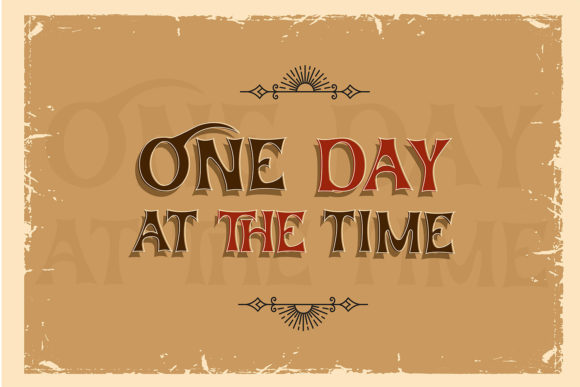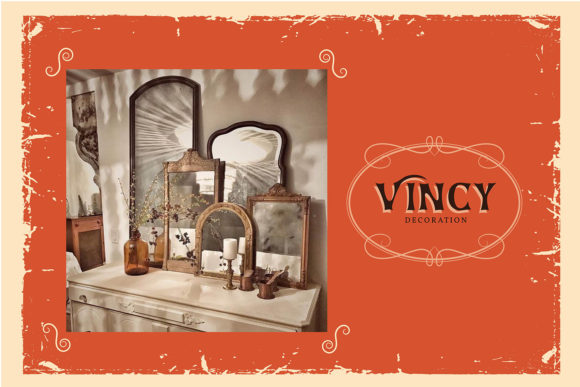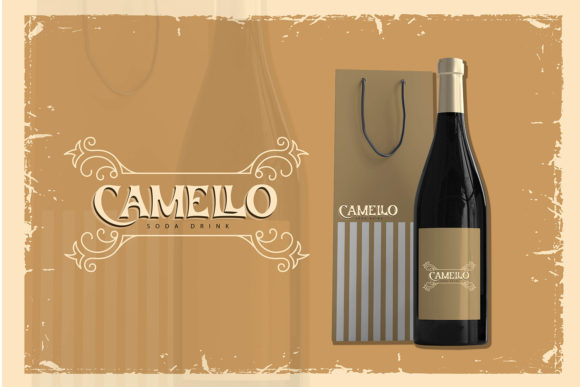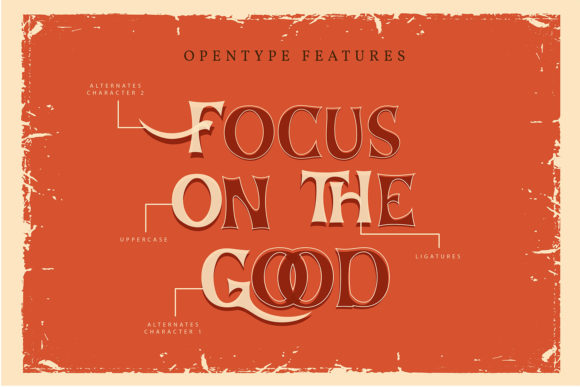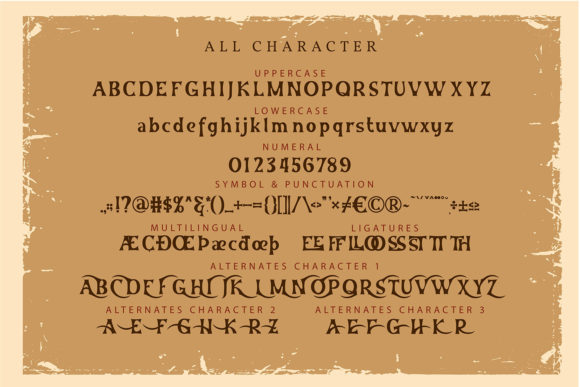
Aganthus Font: Elevate Your Designs with a Timeless Classic
Are you looking for a font that exudes elegance, sophistication, and a touch of vintage charm? Look no further than Aganthus, a stunning display font that has been making waves in the design world. With its bold and classic look, Aganthus is the perfect choice for designers, crafters, and anyone looking to add a touch of luxury to their projects.
What is Aganthus Font?
Aganthus is a beautifully crafted display font that boasts an elegant and bold aesthetic. Its classic design makes it an excellent choice for a wide range of applications, from logos and branding to invitations, stationery, wedding designs, social media posts, and more. Whether you’re a professional designer or a DIY enthusiast, Aganthus is sure to become a staple in your font collection.
Key Features of Aganthus Font
- Elegant and Bold Design: Aganthus features a stunning, high-contrast design that commands attention and exudes sophistication.
- Vintage Charm: With its classic look and feel, Aganthus is perfect for designs that require a touch of nostalgia and timelessness.
- Versatile: Aganthus is suitable for a wide range of applications, from digital designs to print materials.
Use Cases for Aganthus Font
Aganthus is an incredibly versatile font that can be used in various design projects. Here are some ideas to get you started:
- Logos and Branding: Create a lasting impression with a bold and elegant logo that showcases your brand’s personality.
- Invitations and Stationery: Add a touch of sophistication to your invitations, greeting cards, and stationery with Aganthus.
- Wedding Designs: Make your wedding designs truly unforgettable with Aganthus. Use it for wedding invitations, programs, and more.
- Social Media Posts: Elevate your social media game with eye-catching posts that feature Aganthus.
Why Choose Aganthus Font?
With so many fonts available, why should you choose Aganthus? Here are a few compelling reasons:
- Unique and Distinctive: Aganthus stands out from the crowd with its bold and elegant design.
- High-Quality: Aganthus is a high-quality font that is designed to deliver exceptional results.
Tips for Using Aganthus Font
To get the most out of Aganthus, here are some tips to keep in mind:
- Experiment with Different Sizes: Aganthus looks great in various sizes, so don’t be afraid to experiment and find the perfect fit for your design.
- Pair it with Other Fonts: Aganthus pairs well with other fonts, so try combining it with complementary fonts to create a unique look.
- Play with Swashes and Glyphs: With PUA encoding, you can easily access swashes and glyphs to add a personal touch to your designs.
Aganthus is a timeless classic that deserves a spot in every designer’s font collection. Its elegant and bold design, combined with its versatility and ease of use, make it an excellent choice for a wide range of applications. Whether you’re a professional designer or a DIY enthusiast, Aganthus is sure to elevate your designs and help you create stunning projects that leave a lasting impression.